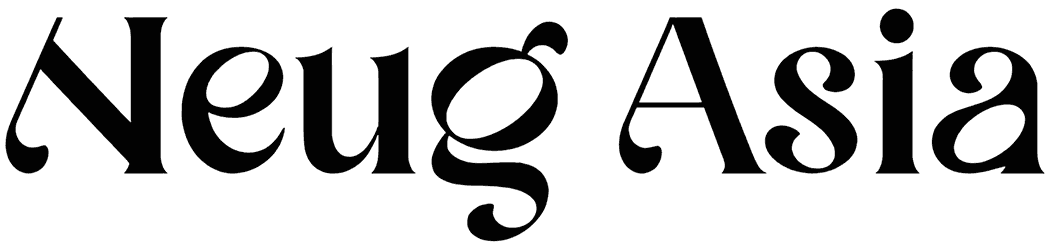
Neug Asia Font
Neug Asia is an almost evil font that is suitable for any occasion. In other words, by changing the background of this evil font, you can completely change its nature and turn its wicked appearance into a font compatible with an emotional mood. This luxury serif font can work well for children’s birthday party themes, their school parties, and even a different Christmas greeting.